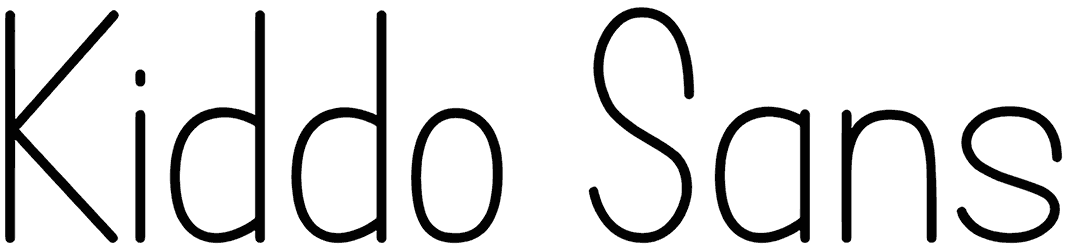
Kiddo Sans Font
You should never be doubtful about choosing a marvelous masterpiece such as the Kiddo Sans, which comes with very thin and elongated letters. This minimal font can share a vibe of personalization, uniqueness, delicacy, or softness with the audience and easily attract their attention to your artwork.